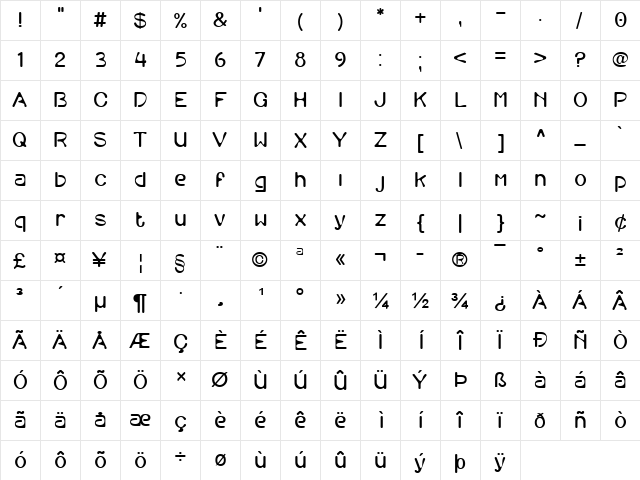
DS-Orange Normal
Design Context for DS-Orange Typeface
DS-Orange takes a measured approach to typography — its balanced proportions and neutral character make it a reliable workhorse for both digital and print work.